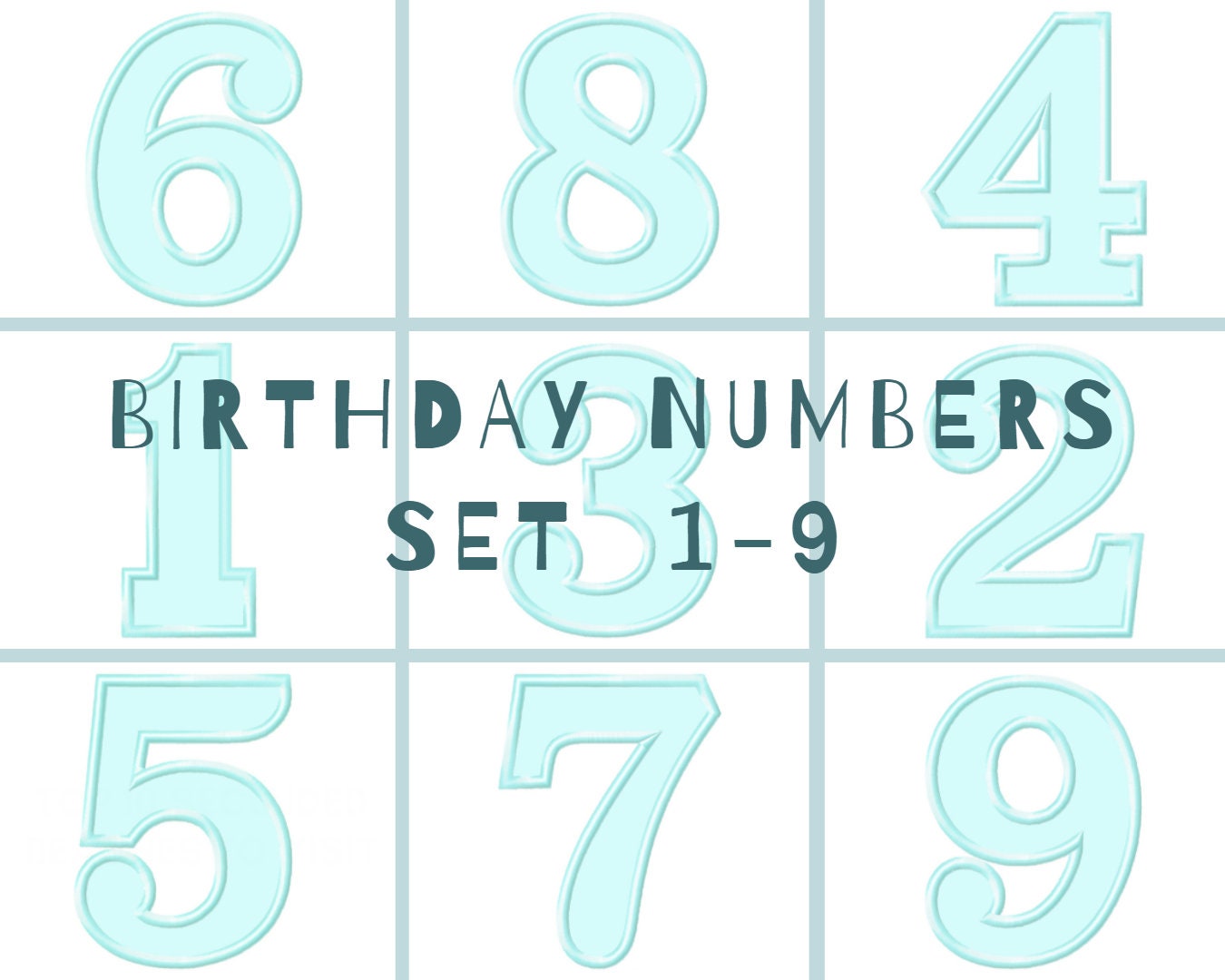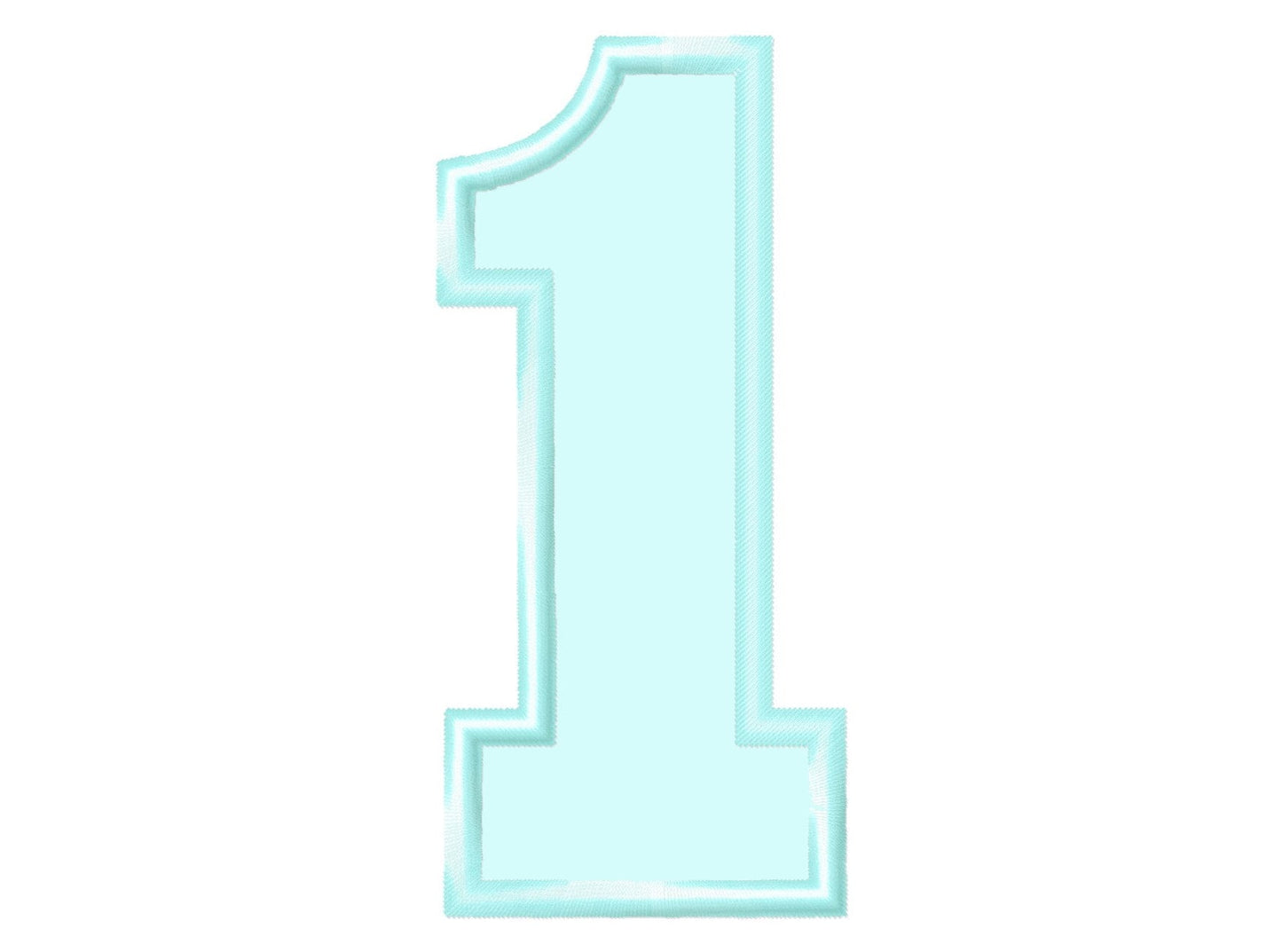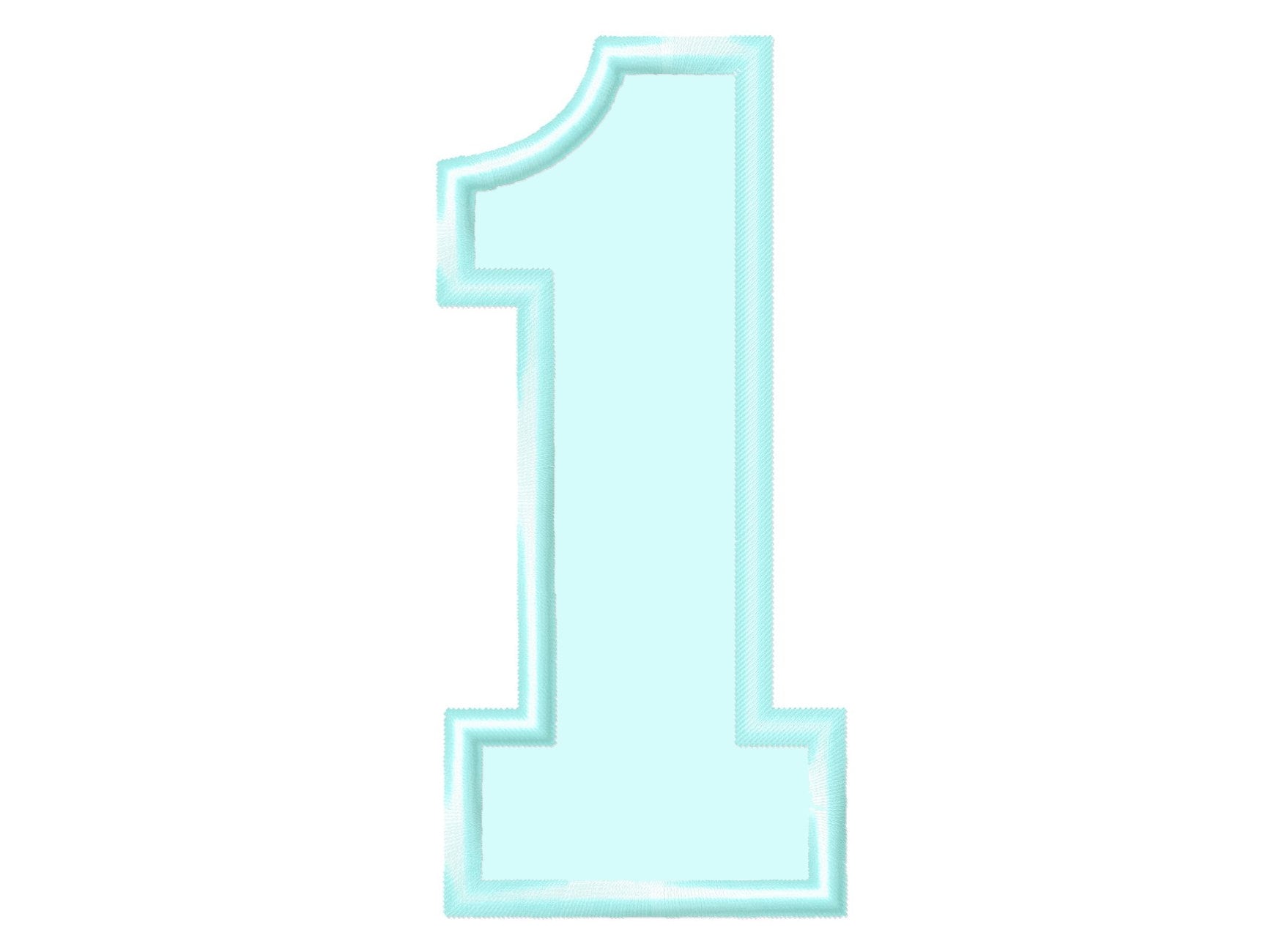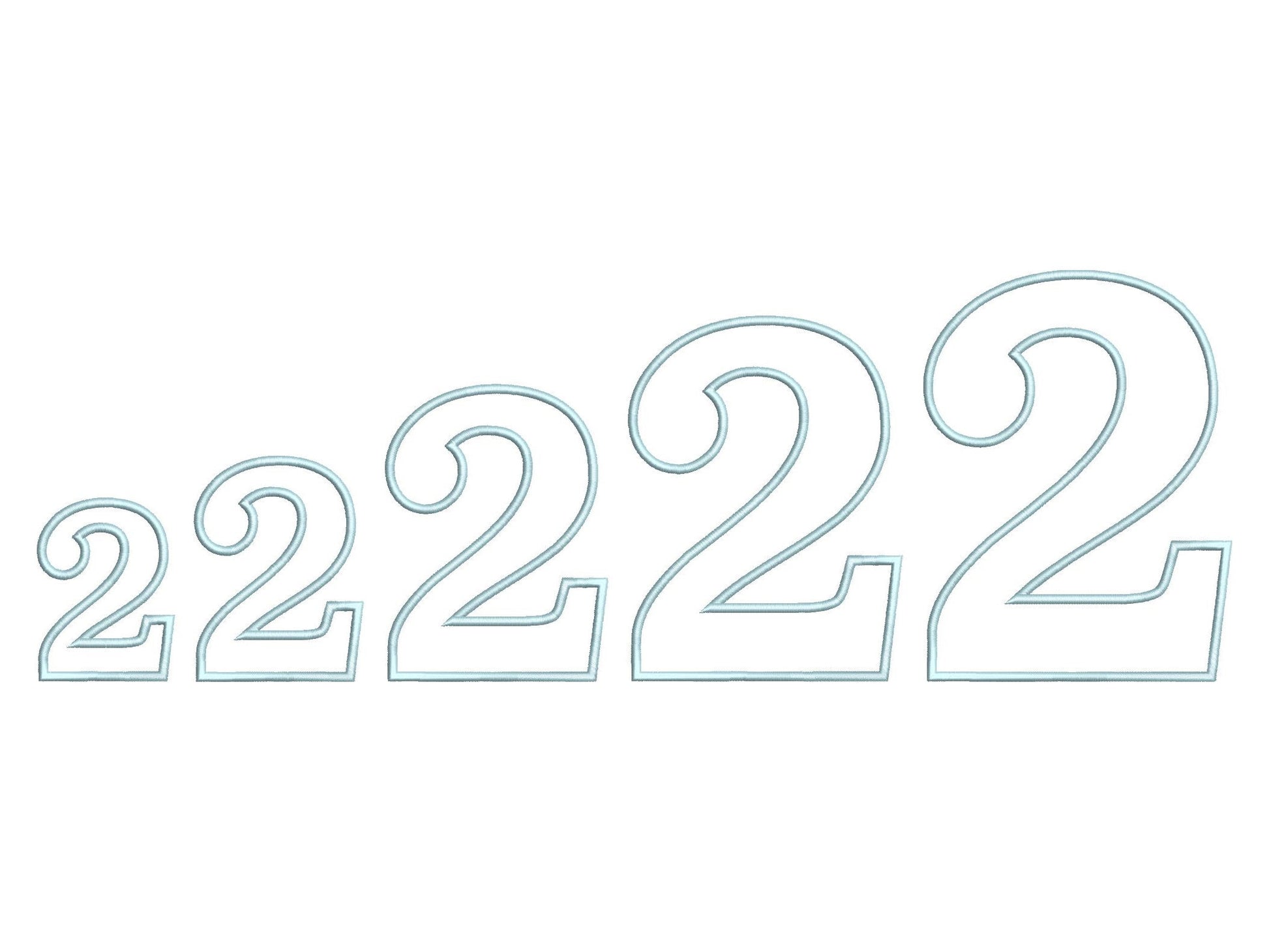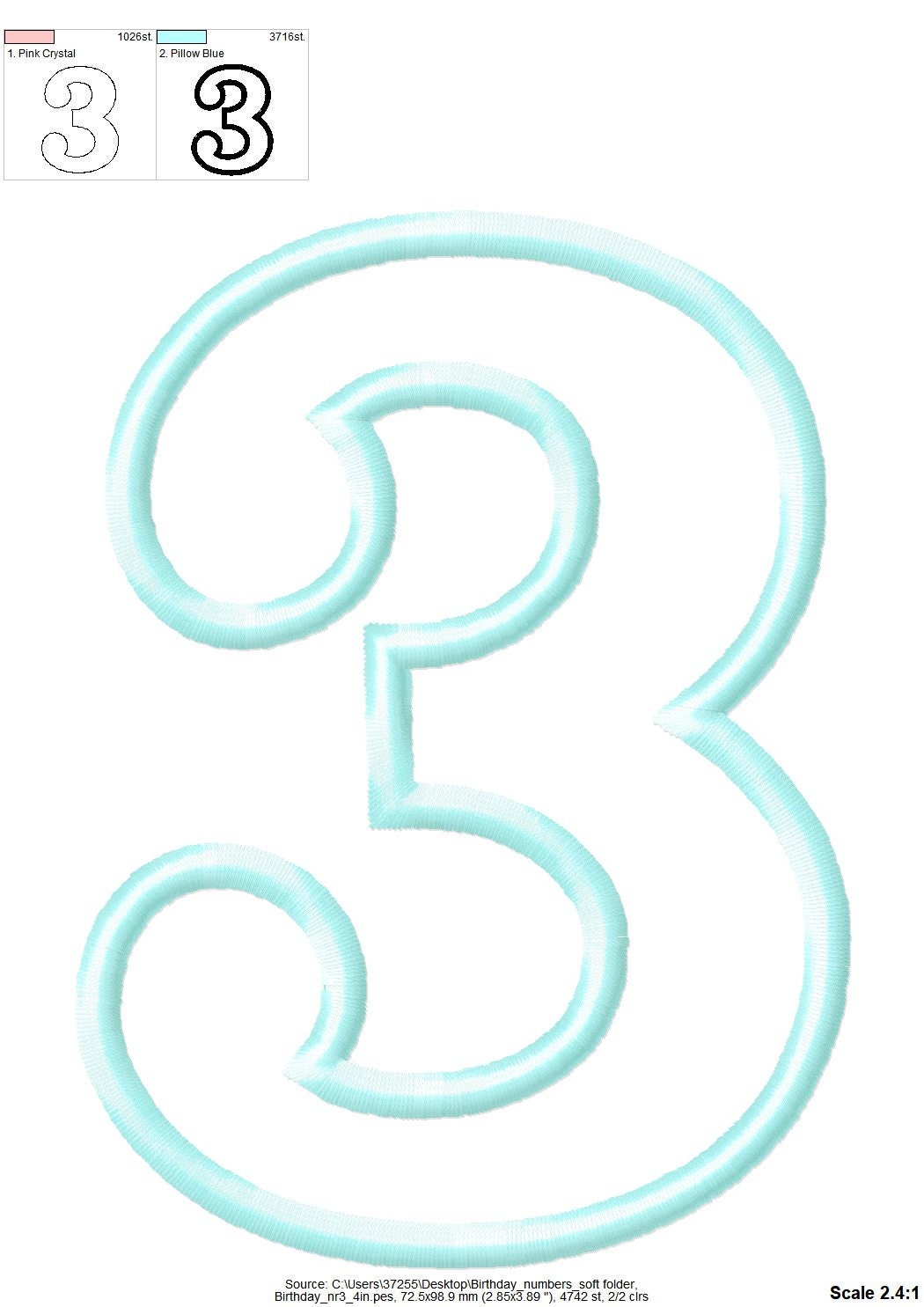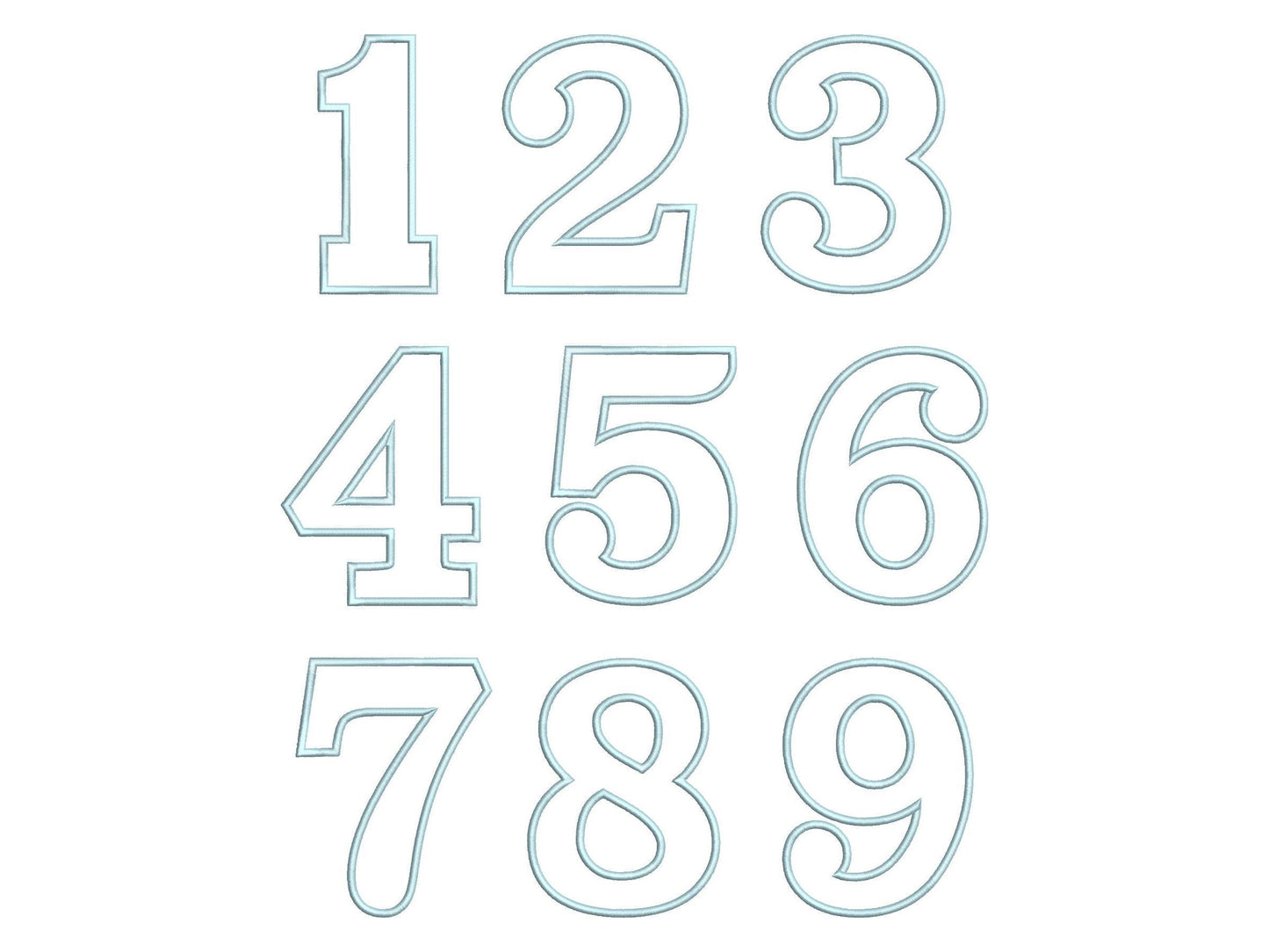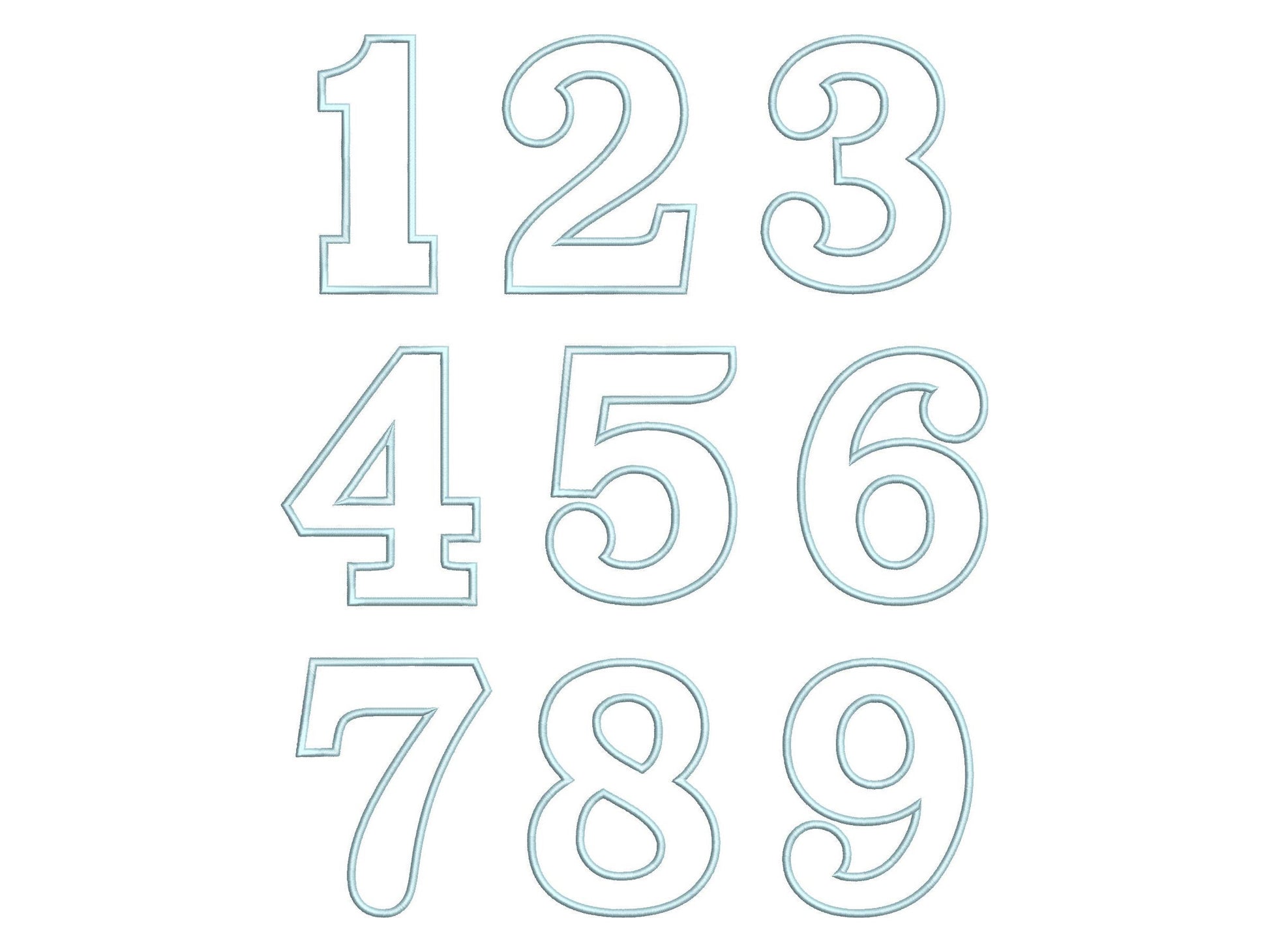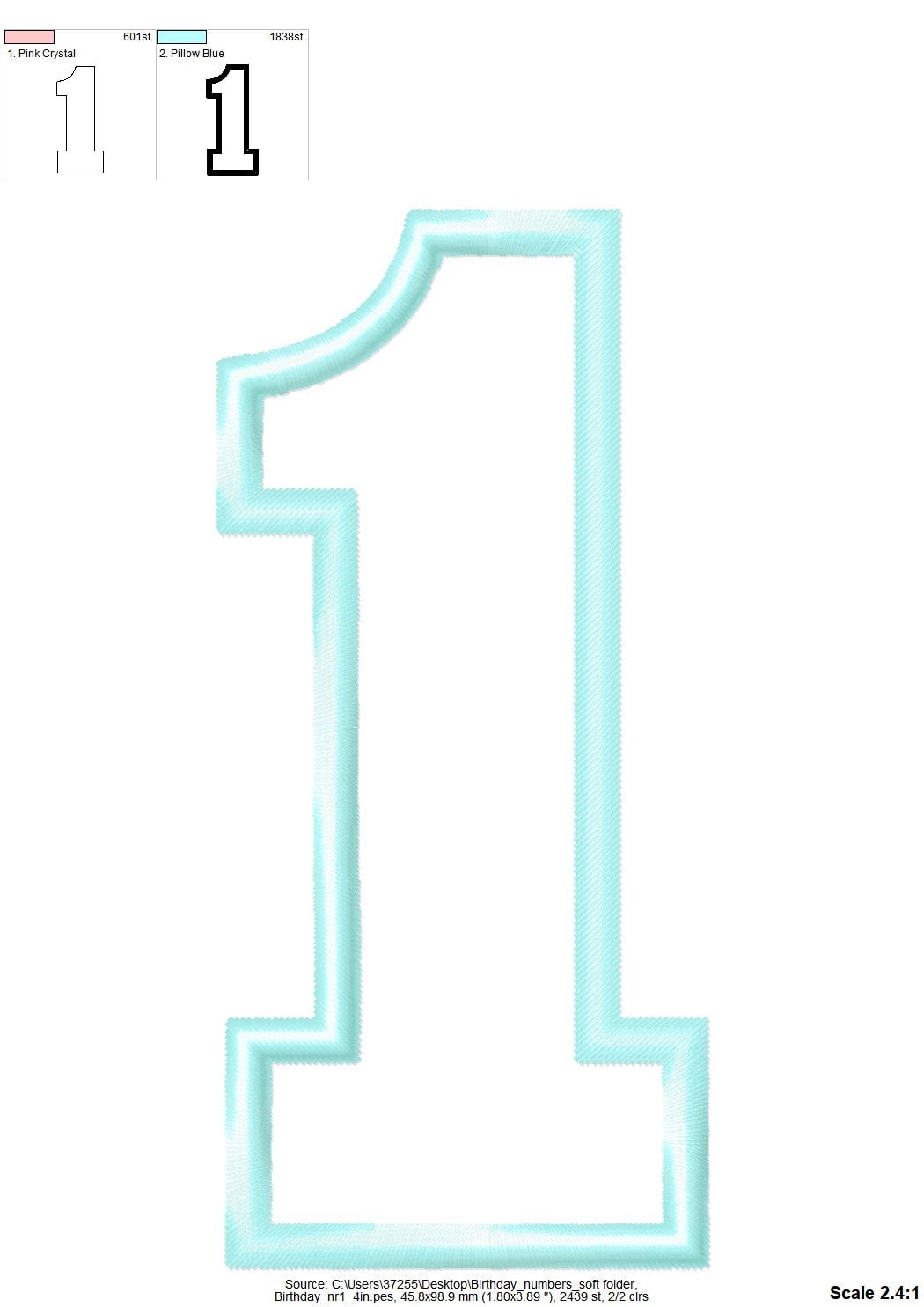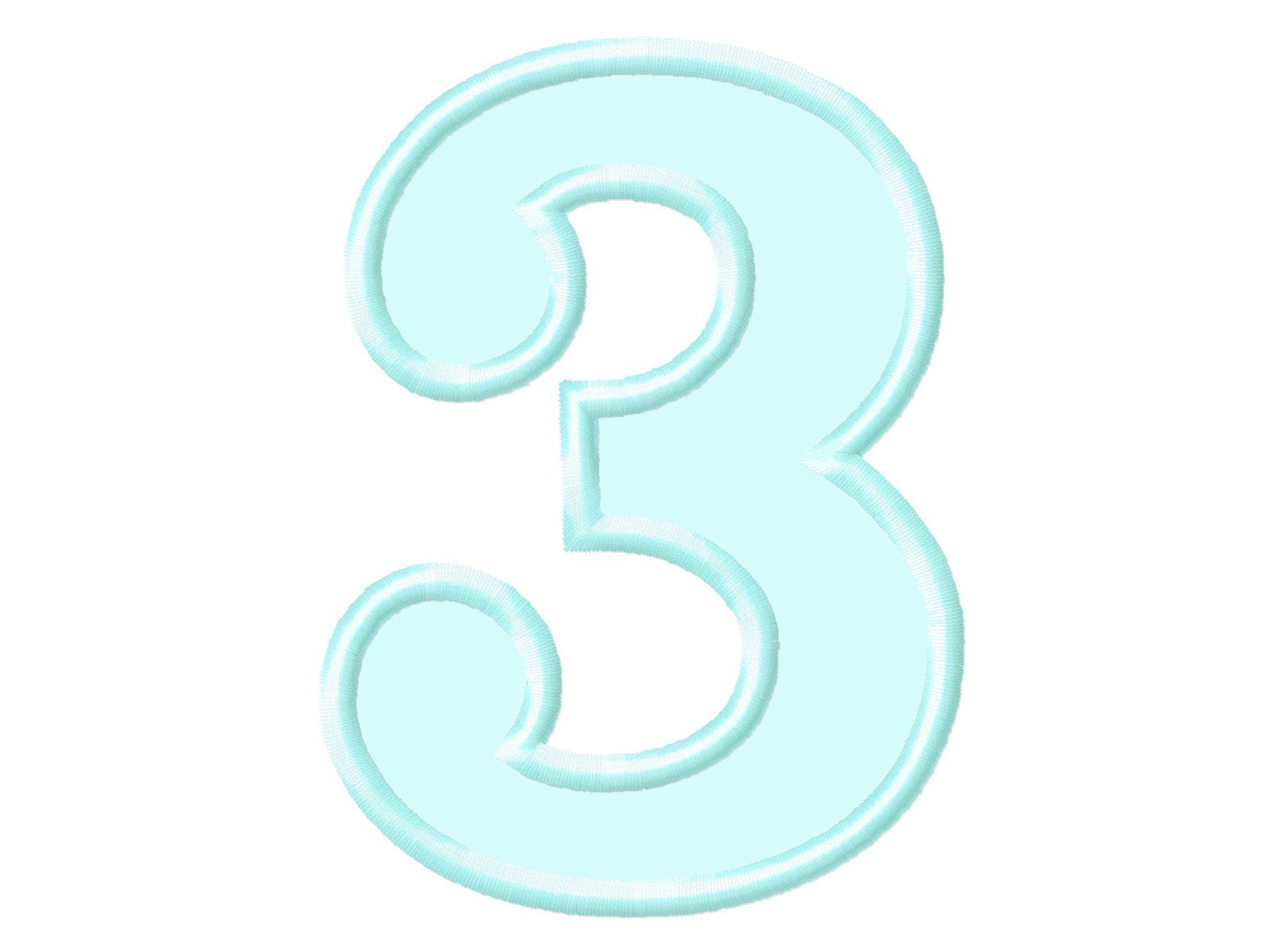
Soft Block Font Kids Birthday Numbers Applique
Soft block birthday numbers from 1 to 9 in applique, for kids' birthday shirts and party outfits.
All nine numbers, each in six sizes: 3, 4, 4.5, 5, 6 and 7 inches. Rounded block shapes with a satin applique edge.
• Applique birthday numbers 1 to 9
• 6 sizes each, 3 to 7 in